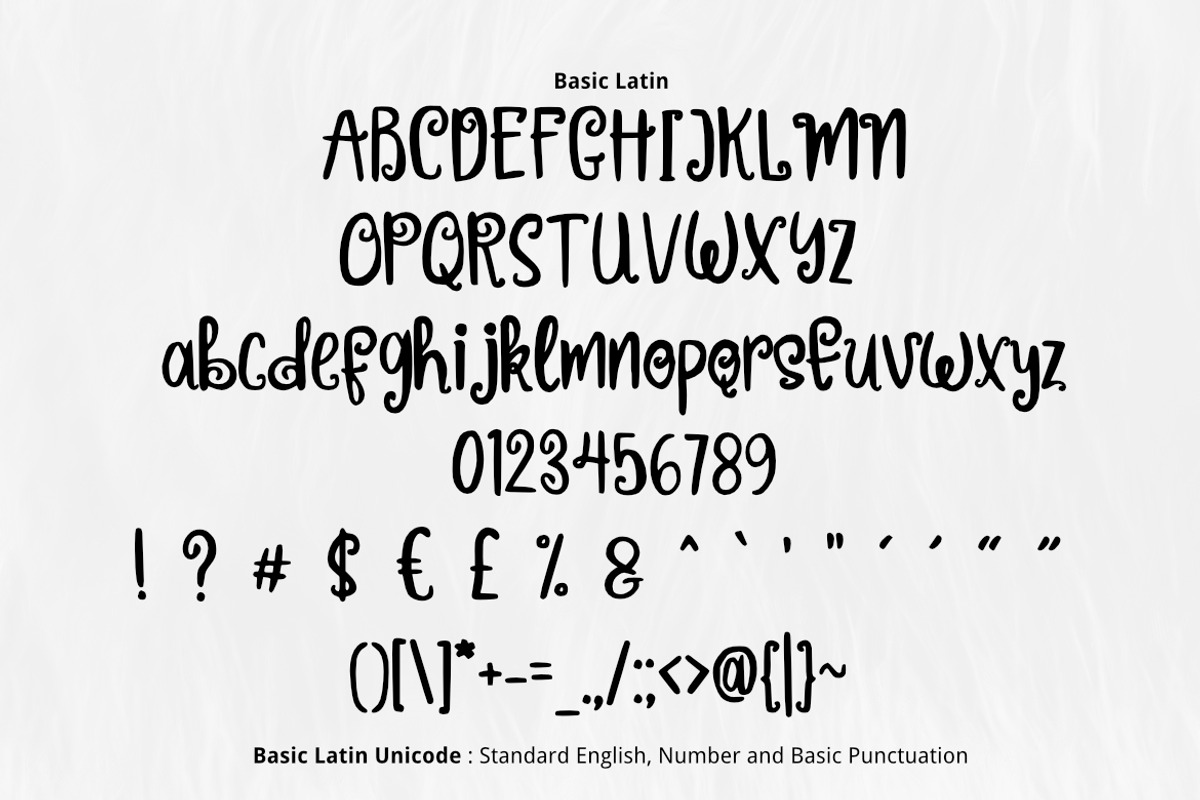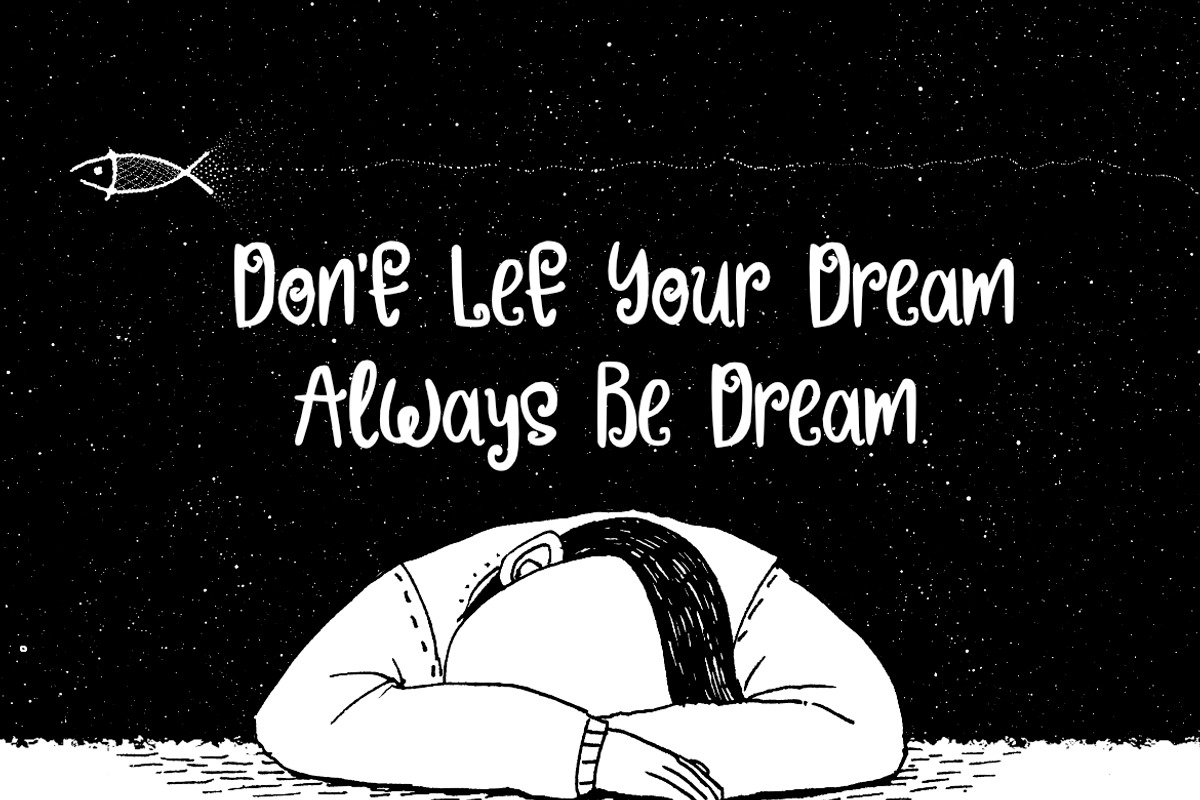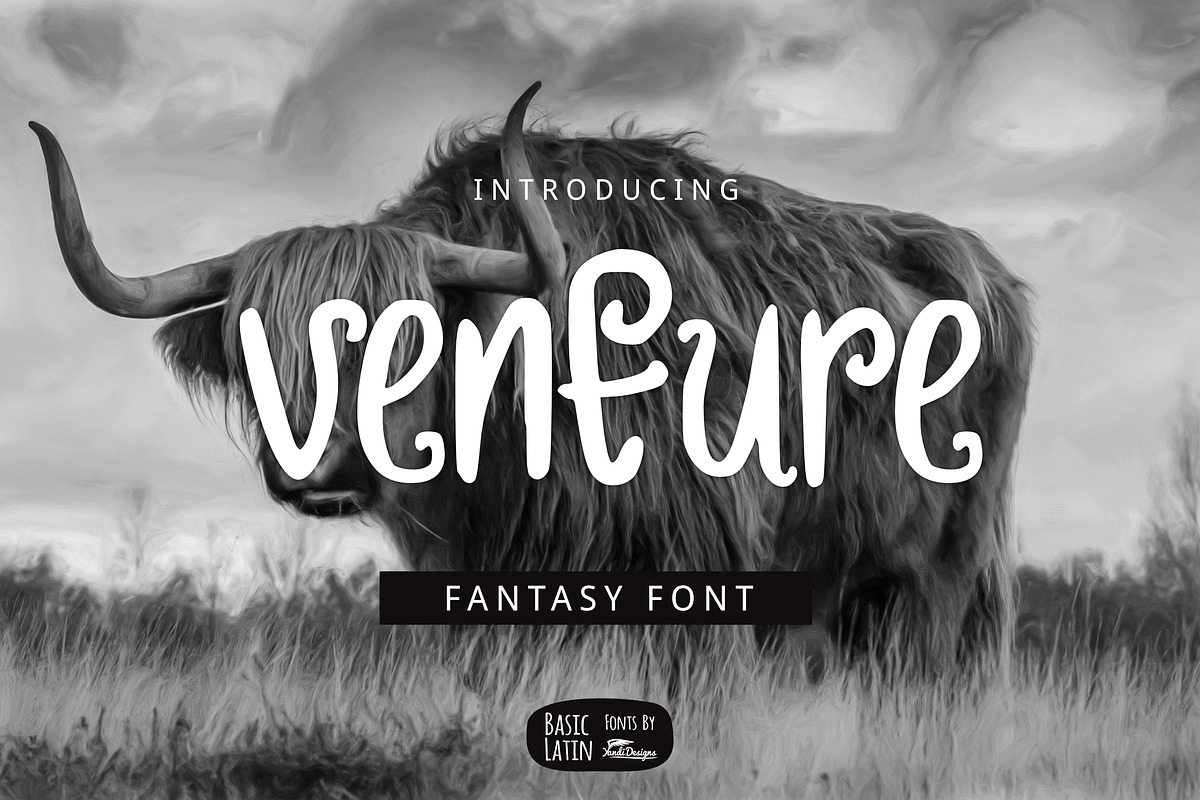
Venture Font
Venture is simple, playful, multipurpose handwritten font , suitable for many project children book, quotes, logo , heading , title etc.
Venture Font by YandiDesigns fits naturally into Branding, posters, packaging, typography.